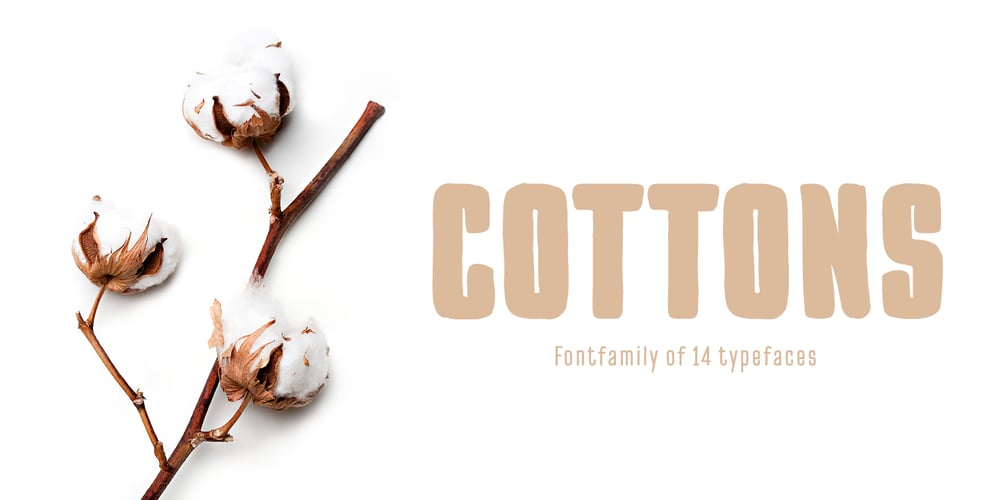
Pinatas Cottons Font Family was designed by TypeType Team and published by Piñata. Pinatas Cottons contains 14 styles and family package options. Original Foundry: TypeType Original typeface name: TT Cottons Pinatas Cottons is a friendly hand-drawn typeface with condensed proportions. Each separate style of Pinatas Cottons was drawn by using different instruments. For instance, the black style was painted with a real brush, and the thin one was created with a pen. We tried to keep this analog feeling of hand drawing while we digitalized each style of the typeface. Pinatas Cottons is your ideal design helper.